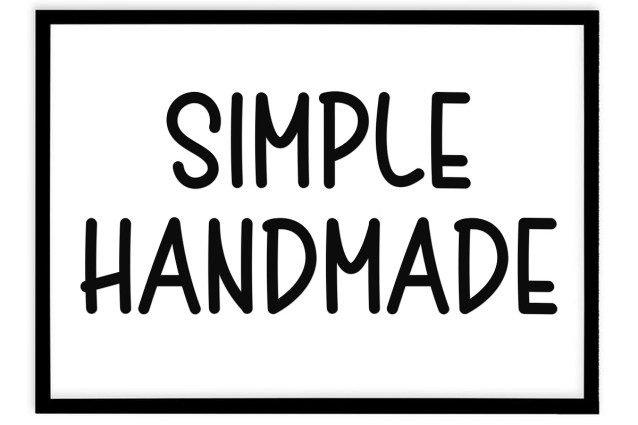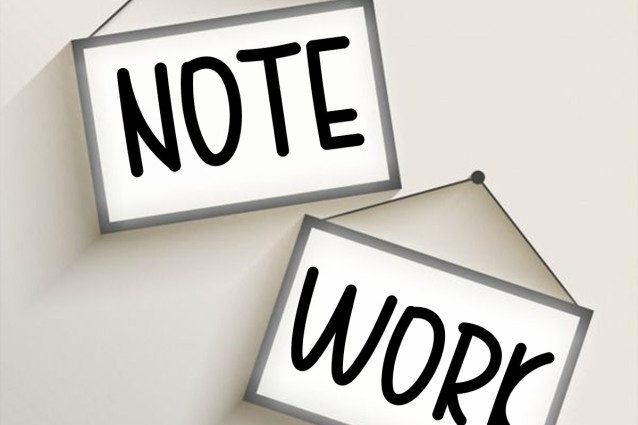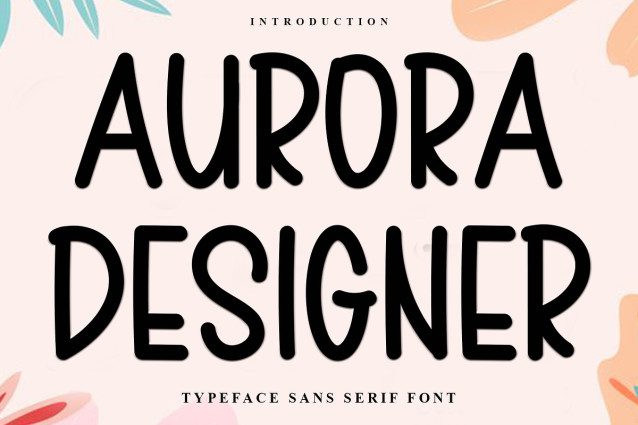
Aurora Designer Font
Aurora Designer Font is a beautiful and eye-catching font designed with a soft, unique touch. Its distinctive strokes give it a special character, making it meaningful and versatile for future use. With various characters, it’s perfect for design projects, crafts, and other creative works.